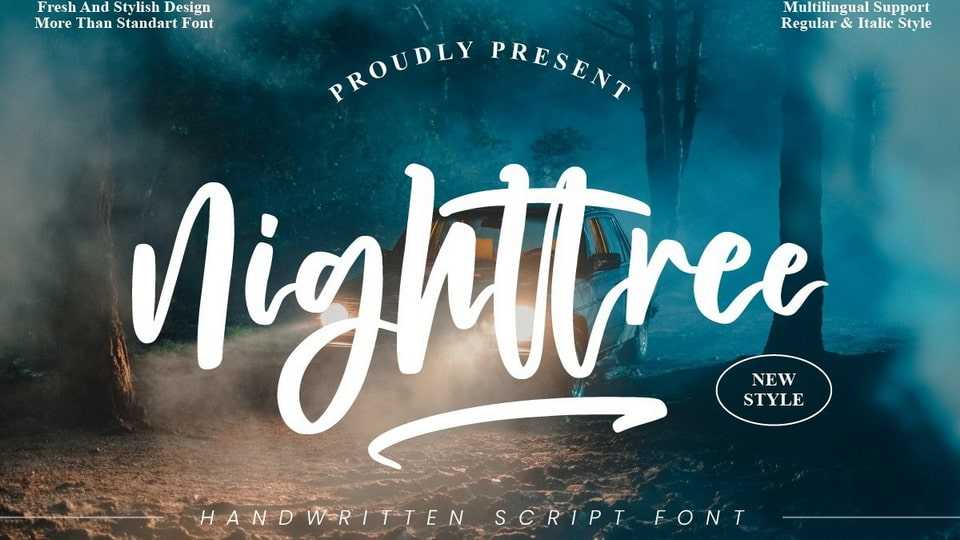
Download Nighttree font, a lovely script typeface featuring charming, playful characters that seem to dance along the baseline. Nighttree font is perfect for branding, business cards, Christmas cards, social media posts and more.